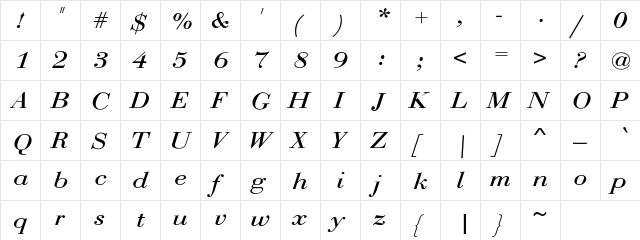
Hensley Ext-Nor 2 Regular
Design Context for Hensley Ext-Nor 2 Typeface
Hensley Ext-Nor 2 offers clean, dependable letterforms without strong stylistic allegiance, making it a practical choice for designers who need flexibility.